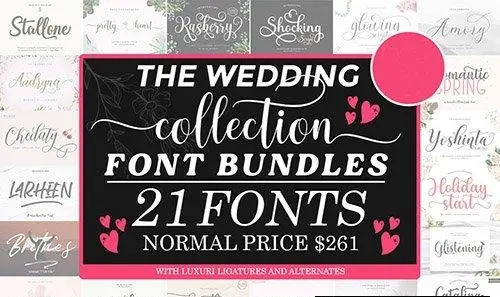
The Wedding Collection Font Bundles
The Wedding Collection Font Bundles is a beautifully curated set of fonts designed specifically for wedding-related projects. This collection features a variety of styles, including elegant script fonts, modern sans-serifs, and classic serif types, perfect for invitations, signage, and other wedding stationery.
• Multiple font styles: script, serif, and sans-serif
• Various weights and styles for versatility
Each font in this collection is crafted with attention to detail, ensuring that your wedding materials will have a polished and sophisticated look. The fonts are suitable for both print and digital use.
Utilize these fonts for creating stunning wedding invitations, save-the-date cards, and personalized thank-you notes. Their unique styles will help convey the theme and emotion of your special day.